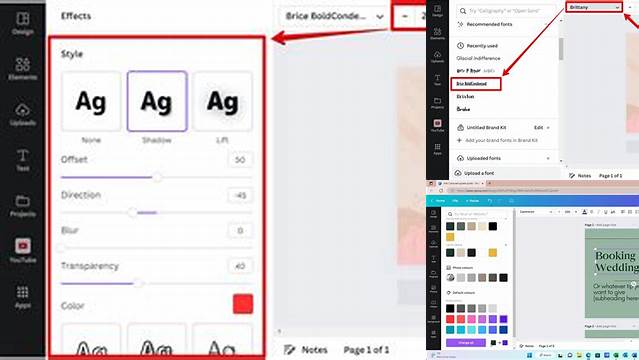
Canva Fonts: Change All Slides Easily
Hey guys! Ever been stuck changing fonts one slide at a time in Canva? It’s a real time-killer, right? Well, I’m here to tell you there’s a much easier way. Let’s dive into how you can change fonts across all your Canva slides in just a few clicks. Trust me, this trick will save you tons of time and effort, making your design process way smoother. So, let’s get started and make your Canva experience a whole lot better!
Understanding Canva's Font System
Before we jump into changing fonts, let's quickly understand how Canva handles fonts. Canva has a massive library of fonts to choose from, ranging from classic serif fonts to modern sans-serif options. Each font has its own unique personality and can significantly impact the overall look and feel of your presentation. Understanding this variety is the first step in making informed decisions about your design.
When you start a new project in Canva, a default font is automatically assigned. This font is used for all text elements unless you manually change it. Knowing this default setting is important because it affects how efficiently you can make changes later on. If you're not happy with the default font, you'll need to know how to change it quickly and consistently across all your slides. That's where the techniques we'll discuss later come in handy. By understanding Canva's font system, you can optimize your workflow and ensure a cohesive design throughout your presentation.
Choosing the right font involves considering several factors. Think about the tone of your presentation: Is it formal or informal? The font should reflect that. Also, consider readability. A fancy, decorative font might look great, but if it's hard to read, it's not a good choice. Always prioritize clarity. Experiment with different font pairings to see what looks best together. Canva allows you to use different fonts for headings and body text, which can create a visually appealing contrast. Just make sure the fonts complement each other and maintain a consistent style throughout your slides. By mastering these basics, you'll be well on your way to creating professional and engaging presentations with Canva.
The Traditional Method: Changing Fonts Manually
Okay, let’s talk about the old-school way: manually changing fonts. This involves going through each slide and changing the font individually. It's definitely doable, but super time-consuming, especially if you have a lot of slides. To do this, you click on a text box, go to the font dropdown menu, and select your new font. Repeat this for every text element on every slide. Sounds tedious, right? It is!
While the manual method gives you complete control over each text element, it's not the most efficient way to work. Imagine you have a presentation with 30 slides and multiple text boxes on each slide. Changing the font manually would take hours! This method is prone to errors because it's easy to miss a text box or accidentally select the wrong font. Plus, it's just plain boring. There are far better ways to manage your fonts in Canva, which we'll get to in a bit.
Despite its drawbacks, the manual method can be useful in certain situations. For example, if you only need to change the font on a few slides or if you want to use different fonts on different slides for emphasis, the manual method might be the best option. However, for large presentations where you want a consistent font throughout, you should definitely explore the more efficient methods that Canva offers. Trust me, your sanity will thank you!
Why You Should Avoid Manual Font Changes
Seriously, avoid changing fonts manually if you can. Not only does it take forever, but it also increases the risk of inconsistencies. You might accidentally use different font sizes or weights, which can make your presentation look unprofessional. Plus, all that repetitive clicking can be a real pain. Let's be real; nobody wants to spend their valuable time doing that.
Manual font changes are a recipe for disaster when it comes to maintaining a consistent design. Even if you're super careful, it's easy to make mistakes. Imagine presenting your slides and realizing that some slides have a slightly different font than others. It's distracting and can undermine your credibility. Consistency is key to a polished presentation, and manual font changes make it much harder to achieve that.
Furthermore, the time you save by using more efficient methods can be used for more important tasks, like refining your content or practicing your delivery. Why waste hours on a tedious task when you can accomplish the same thing in minutes? By avoiding manual font changes, you're not just saving time; you're also improving the overall quality of your presentation and freeing up your energy to focus on what really matters.
The Style Feature: A Quick Solution
Here’s where things get interesting. Canva has a nifty feature called “Styles” that lets you apply font and color combinations to your entire presentation with just one click. This is a game-changer, guys! To use it, go to the "Styles" tab on the left-hand side of your screen. You'll see a variety of pre-designed style combinations. Each style includes a font pairing and a color palette. Simply click on a style to apply it to your entire presentation.
The "Styles" feature is incredibly useful for quickly changing the overall look and feel of your presentation. It's perfect for when you want to experiment with different design options or when you need to make a quick change to match your brand guidelines. However, keep in mind that the "Styles" feature applies both font and color changes. If you only want to change the font, you might need to customize the style further.
One of the best things about the "Styles" feature is that it ensures consistency across all your slides. You don't have to worry about accidentally using different fonts or colors on different slides. This makes your presentation look more professional and polished. Plus, it saves you a ton of time and effort. So, if you're looking for a quick and easy way to change fonts in Canva, the "Styles" feature is definitely worth checking out.
How to Access the Styles Tab in Canva
Finding the “Styles” tab is super easy. Open your Canva project, and look on the left side of your screen. You should see a panel with different options like “Templates,” “Elements,” and “Uploads.” Scroll down until you find “Styles.” If you don’t see it, click on the three dots that say “More” and search for “Styles” in the dropdown menu. Click on it, and the Styles tab will appear.
Once you've located the "Styles" tab, you can start exploring the different style options available. Canva offers a wide variety of pre-designed styles to choose from, ranging from minimalist and modern to bold and colorful. Each style includes a font pairing and a color palette that have been carefully selected to work well together. This makes it easy to find a style that matches your brand or the overall look and feel you're going for.
The "Styles" tab also allows you to create your own custom styles. This is a great option if you have specific brand guidelines that you need to follow or if you want to create a unique look for your presentation. To create a custom style, simply select the fonts and colors you want to use, and then save the style for future use. This will save you time and effort in the long run, as you won't have to manually select the same fonts and colors every time you create a new presentation.
Applying Styles to All Slides
Once you've found the “Styles” tab, applying a style to all your slides is a breeze. Just click on the style you like, and Canva will automatically apply the font and color combination to all the slides in your presentation. If you don’t like how it looks, just click on a different style until you find one that works for you.
It's important to note that applying a style will override any existing font and color settings on your slides. So, if you've already customized the fonts and colors on some of your slides, you'll need to reapply those changes after applying the style. However, this is still much faster than manually changing the fonts on every slide.
If you want to apply a style to only a few slides, you can select those slides before clicking on the style. This is useful if you want to create a visual hierarchy in your presentation or if you want to highlight certain slides. Just remember to hold down the Shift or Ctrl key while clicking on the slides to select multiple slides at once.
Customizing Styles to Fit Your Needs
While the pre-designed styles are great, you might want to tweak them to better fit your brand or personal preferences. No problem! Canva lets you customize styles. After applying a style, you can still change individual fonts and colors. This gives you the best of both worlds: the convenience of applying a style and the flexibility of customizing it.
To customize a style, simply click on the text or element you want to change, and then use the font and color tools in the toolbar to make your adjustments. You can also create your own custom styles from scratch by selecting the fonts and colors you want to use and then saving the style for future use. This is a great option if you have specific brand guidelines that you need to follow.
When customizing styles, it's important to maintain consistency throughout your presentation. Use the same fonts and colors on all your slides, and avoid using too many different styles. This will help create a polished and professional look. It's also a good idea to create a style guide for your brand or personal use. This will help you stay consistent and make it easier to create visually appealing presentations in the future.
Using Brand Kits for Consistent Branding
If you have a Canva Pro account, you can create a Brand Kit. This is a collection of your brand’s logos, colors, and fonts. Using a Brand Kit ensures that all your designs are consistent with your brand. To set up a Brand Kit, go to the “Brand Kit” section in your Canva account settings and upload your logos, select your brand colors, and choose your brand fonts.
Having a Brand Kit is incredibly useful for maintaining a consistent brand identity across all your designs. It saves you time and effort by making it easy to access your brand assets whenever you need them. Plus, it helps ensure that your designs always look professional and on-brand.
When choosing fonts for your Brand Kit, it's important to select fonts that are both visually appealing and easy to read. Consider the overall tone of your brand and choose fonts that reflect that. You should also choose fonts that are available in a variety of weights and styles, so you have plenty of options to work with. Once you've set up your Brand Kit, you can easily apply your brand fonts to all your slides in Canva with just a few clicks.
Setting Default Fonts for New Projects
Want to take it a step further? You can set default fonts for all your new Canva projects. This means that every time you start a new design, your chosen fonts will already be selected. This is a huge time-saver if you always use the same fonts. To do this, go to your Canva account settings and look for the “Brand” or “Defaults” section. There, you can specify your default fonts for headings and body text.
Setting default fonts is a great way to streamline your design process and ensure consistency across all your projects. It's especially useful if you work on a lot of different projects or if you collaborate with other designers. By setting default fonts, you can make sure that everyone is using the same fonts, which helps maintain a cohesive brand identity.
When choosing default fonts, it's important to select fonts that are versatile and easy to read. Consider the types of projects you typically work on and choose fonts that are appropriate for those projects. You should also choose fonts that are available in a variety of weights and styles, so you have plenty of options to work with. Once you've set your default fonts, you can start creating new designs with confidence, knowing that your chosen fonts will always be there.
Using the "Change All" Feature (If Available)
Canva sometimes offers a “Change All” feature when you select a new font. If you see this option, it’s your best friend! It automatically changes the font across all instances of that particular text style in your presentation. Keep an eye out for this feature, as it can save you a lot of time.
The "Change All" feature is a game-changer when it comes to making global font changes in Canva. It's especially useful if you've used the same font for headings or body text throughout your presentation. Instead of manually changing each instance of the font, you can simply select the "Change All" option and Canva will automatically update all the text elements that use that font.
If you don't see the "Change All" feature, don't worry. There are still plenty of other ways to quickly change fonts in Canva, as we've discussed in this article. However, if you do see the "Change All" feature, be sure to take advantage of it. It's one of the fastest and easiest ways to make global font changes in Canva.
Keyboard Shortcuts for Font Changes
Become a Canva power user by learning keyboard shortcuts! While there aren’t specific shortcuts for changing fonts directly, you can use shortcuts for selecting text (Ctrl+A or Cmd+A) and then quickly access the font dropdown menu. This can speed up the manual font change process if you need to make small adjustments.
Keyboard shortcuts are a great way to improve your efficiency and speed up your workflow in Canva. While there may not be specific shortcuts for changing fonts, there are plenty of other shortcuts that can help you work faster. For example, you can use the Ctrl+C (or Cmd+C) shortcut to copy text and the Ctrl+V (or Cmd+V) shortcut to paste text. You can also use the Ctrl+B (or Cmd+B) shortcut to bold text and the Ctrl+I (or Cmd+I) shortcut to italicize text.
Learning these and other keyboard shortcuts can save you a lot of time and effort in the long run. So, take some time to familiarize yourself with the keyboard shortcuts in Canva and start using them in your daily workflow. You'll be amazed at how much faster and more efficient you can become.
Font Pairing Tips for Canva Designs
Choosing the right font pairings can make or break your design. A good rule of thumb is to pair a serif font (like Times New Roman or Georgia) with a sans-serif font (like Arial or Helvetica). Use the serif font for headings and the sans-serif font for body text, or vice versa. This creates a visual contrast that’s pleasing to the eye.
Font pairing is an art, but it doesn't have to be intimidating. There are plenty of resources available online that can help you learn more about font pairing and find fonts that work well together. You can also experiment with different font pairings in Canva to see what looks best for your specific project.
When choosing fonts, it's important to consider the overall tone of your design. Are you going for a formal and professional look, or a more casual and playful look? The fonts you choose should reflect that. You should also consider the readability of the fonts. Choose fonts that are easy to read, especially for body text. A fancy or decorative font might look great for a heading, but it might not be the best choice for body text.
Using Canva's Font Filters Effectively
Canva has font filters that can help you narrow down your font choices. You can filter fonts by style (serif, sans-serif, handwritten, etc.) and by language. Use these filters to quickly find the perfect font for your project. For example, if you’re looking for a modern font, filter by “sans-serif” to see all the sans-serif options available.
Using Canva's font filters effectively can save you a lot of time and effort when searching for the perfect font. Instead of scrolling through hundreds of fonts, you can quickly narrow down your choices by using the filters. This is especially useful if you have a specific style in mind or if you need to find a font that supports a particular language.
In addition to filtering by style and language, you can also filter by popularity and date added. This can help you discover new and trending fonts that you might not have seen before. So, take some time to explore Canva's font filters and see how they can help you find the perfect font for your next project.
Sometimes, fonts might not display correctly in Canva. This could be due to a number of reasons, such as a font not being fully loaded or a browser issue. If you encounter font issues, try refreshing the page or clearing your browser cache. If that doesn’t work, try using a different browser or contacting Canva support.
Troubleshooting font issues can be frustrating, but it's important to remember that there are solutions available. If you're experiencing font problems in Canva, the first thing you should do is try refreshing the page. This often resolves minor issues and can get the fonts displaying correctly.
If refreshing the page doesn't work, try clearing your browser cache. This can help remove any corrupted files that might be causing the font issues. If you're still having problems, try using a different browser. Sometimes, certain browsers might not be fully compatible with Canva's font system. If none of these solutions work, contact Canva support. They can help you troubleshoot the issue and find a solution.
Creating Templates with Pre-Set Fonts
If you frequently create similar types of presentations, consider creating templates with pre-set fonts. This way, you don’t have to worry about changing fonts every time you start a new project. Simply open the template, add your content, and you’re good to go!
Creating templates with pre-set fonts is a great way to save time and effort in the long run. It's especially useful if you work on a lot of similar projects or if you want to ensure consistency across all your designs. By creating templates, you can streamline your workflow and make it easier to create professional-looking presentations.
When creating templates, it's important to choose fonts that are versatile and easy to read. Consider the types of projects you typically work on and choose fonts that are appropriate for those projects. You should also choose fonts that are available in a variety of weights and styles, so you have plenty of options to work with. Once you've created your templates, you can start using them for all your future projects.
Collaborating with Others: Font Considerations
When collaborating with others on Canva, make sure everyone is using the same fonts. This avoids any font discrepancies when sharing and editing the design. Communicate clearly about which fonts to use and consider using a Brand Kit to ensure everyone is on the same page.
Collaboration is key to successful teamwork, and when it comes to design, it's important to ensure that everyone is on the same page. Font consistency is a crucial aspect of maintaining a cohesive design, so it's important to communicate clearly about which fonts to use. Using a Brand Kit is a great way to ensure that everyone is using the same fonts and colors.
Before starting a collaborative project, take some time to discuss the overall design goals and preferences. This will help everyone understand the vision for the project and make it easier to make consistent design decisions. You should also establish a clear process for reviewing and approving changes to the design. This will help avoid any misunderstandings or disagreements about font choices.
Exporting Your Canva Design with the Correct Fonts
Before exporting your Canva design, double-check that all the fonts are displaying correctly. Sometimes, fonts can change during the export process, especially if you’re using custom fonts. To avoid this, try exporting your design as a PDF and embedding the fonts. This ensures that the fonts will display correctly on any device.
Exporting your Canva design with the correct fonts is crucial for ensuring that your design looks its best. Font discrepancies can be frustrating and can undermine the overall quality of your design. To avoid font issues during the export process, it's important to take a few precautions.
First, double-check that all the fonts are displaying correctly in Canva before exporting. If you notice any font problems, try refreshing the page or clearing your browser cache. If that doesn't work, try using a different browser or contacting Canva support. Second, try exporting your design as a PDF and embedding the fonts. This ensures that the fonts will display correctly on any device. Finally, always preview your exported design to make sure that the fonts are displaying as expected.
Mobile Font Editing Tips in Canva
Using Canva on your phone or tablet? No problem! The process for changing fonts is similar to the desktop version. Tap on the text box, then tap on the font dropdown menu. Select your new font, and it will be applied to the text. The mobile app also supports the “Styles” feature, so you can quickly change fonts across all your slides.
Canva's mobile app is a great way to create and edit designs on the go. Whether you're commuting to work or waiting in line, you can easily make changes to your designs from your phone or tablet. The mobile app offers many of the same features as the desktop version, including the ability to change fonts.
To change fonts in the mobile app, simply tap on the text box you want to edit, then tap on the font dropdown menu. This will display a list of available fonts. Select the font you want to use, and it will be applied to the text. The mobile app also supports the "Styles" feature, so you can quickly change fonts across all your slides with just a few taps.
Font Licensing and Usage Rights in Canva
Be mindful of font licensing and usage rights when using fonts in Canva. Most fonts in Canva are free to use for personal and commercial purposes, but some fonts may have restrictions. Always check the font license before using a font in your design to make sure you’re complying with the terms of use.
Font licensing and usage rights are important considerations when using fonts in Canva. While most fonts in Canva are free to use, some fonts may have restrictions on how they can be used. It's important to check the font license before using a font in your design to make sure you're complying with the terms of use.
If you're unsure about the licensing terms for a particular font, you can contact Canva support for clarification. They can help you understand the font license and ensure that you're using the font in accordance with the terms of use. By being mindful of font licensing and usage rights, you can avoid any legal issues and ensure that you're using fonts responsibly.
Exploring Free Font Resources Outside Canva
While Canva has a great selection of fonts, you can also explore free font resources outside of Canva. Websites like Google Fonts and Font Squirrel offer a wide variety of free fonts that you can download and use in your Canva designs. Just make sure to check the font license before using any external fonts.
Exploring free font resources outside of Canva can open up a world of creative possibilities. There are countless websites that offer free fonts, each with its own unique style and personality. However, it's important to exercise caution when downloading fonts from external sources.
Always check the font license before using any external fonts. Some fonts may be free for personal use only, while others may be free for commercial use. Make sure you understand the font license and comply with the terms of use. You should also download fonts from reputable websites to avoid downloading malware or viruses. By being careful and responsible, you can safely explore free font resources and find the perfect font for your next Canva design.
The Psychology of Fonts: Choosing the Right Font for Your Message
Did you know that fonts can evoke different emotions and associations? The psychology of fonts is a fascinating field that explores how fonts affect our perception of a message. For example, a serif font might convey a sense of tradition and authority, while a sans-serif font might convey a sense of modernity and simplicity. Consider the message you’re trying to convey and choose fonts that align with that message.
The psychology of fonts is a fascinating field that explores how fonts can influence our perception of a message. Different fonts can evoke different emotions and associations, so it's important to choose fonts that align with the message you're trying to convey.
For example, a serif font like Times New Roman might convey a sense of tradition and authority, while a sans-serif font like Arial might convey a sense of modernity and simplicity. A handwritten font might convey a sense of warmth and informality, while a script font might convey a sense of elegance and sophistication. By understanding the psychology of fonts, you can choose fonts that effectively communicate your message and resonate with your audience.
Advanced Text Effects with Different Fonts
Experiment with advanced text effects like shadows, outlines, and gradients to make your fonts stand out. Canva offers a variety of text effects that you can use to enhance your designs. Try using different fonts in combination with these effects to create unique and eye-catching visuals.
Advanced text effects can add a touch of flair and personality to your designs. Canva offers a variety of text effects, such as shadows, outlines, gradients, and glow effects, that you can use to enhance your designs. These effects can help make your fonts stand out and create a more visually appealing design.
When using text effects, it's important to use them sparingly and in a way that complements the overall design. Avoid using too many effects or using effects that are too distracting. The goal is to enhance the text, not to overwhelm it. Experiment with different text effects and fonts to find combinations that work well together and create unique and eye-catching visuals.
Animation Font Style
Font animation has become increasingly popular in modern web design, as it adds a dynamic and engaging element to text. There are several ways to animate fonts, ranging from simple fade-in effects to complex kinetic typography.
For simple animations, you can use CSS transitions and transforms to create effects such as scaling, rotating, or sliding text into view. For more complex animations, JavaScript libraries like GSAP (GreenSock Animation Platform) can be used to control every aspect of the animation with precision.
When using animated fonts, it's essential to consider performance. Complex animations can be resource-intensive, so it's important to optimize them for smooth playback on different devices. Using hardware acceleration, minimizing the number of animated elements, and caching assets can help improve performance.
Gradient Font style
Gradient fonts add a visually appealing effect to text by blending multiple colors seamlessly. This technique can be used to create a sense of depth, highlight specific words, or simply add a touch of creativity to your designs. Implementing gradient fonts can be done through various methods, including CSS and image-based approaches.
CSS gradients provide a flexible and efficient way to apply gradients to fonts. By using the linear-gradient() or radial-gradient() functions, you can define the color stops and direction of the gradient. This method is supported by most modern browsers and allows for dynamic changes through CSS animations and transitions.
Image-based gradient fonts involve creating an image with the desired gradient and using it as a mask or background for the text. This approach offers more control over the gradient's appearance but can be less flexible than CSS gradients. It's important to optimize the image to ensure it loads quickly and doesn't affect the page's performance.
3D Font Style
3D fonts add depth and realism to text, making it stand out in designs. This effect can be achieved through various techniques, including CSS, SVG, and specialized 3D modeling software.
CSS can be used to create simple 3D effects by applying multiple text shadows with slight offsets. This technique simulates depth and can be enhanced with animations and transitions. However, CSS-based 3D fonts are limited in complexity and realism.
SVG (Scalable Vector Graphics) allows for more advanced 3D effects by defining shapes and applying transformations. SVG-based 3D fonts can be animated and interacted with, providing a dynamic user experience. However, creating and optimizing SVG 3D fonts requires expertise in vector graphics.
Vintage Font Style
Vintage fonts evoke a sense of nostalgia and timelessness, making them ideal for designs that aim to capture a historical or retro feel. These fonts often feature serifs, ornate details, and unique character shapes that distinguish them from modern typefaces.
When choosing vintage fonts, it's important to consider the specific era or style you want to evoke. Art Deco fonts, for example, feature geometric shapes and bold lines, while Victorian fonts are characterized by intricate details and elegant curves. Researching different vintage styles can help you find the perfect font for your project.
Pairing vintage fonts with appropriate color palettes and design elements can enhance the overall effect. Muted colors, aged textures, and vintage illustrations can complement the font and create a cohesive design. However, it's important to use vintage fonts sparingly to avoid overwhelming the design and maintaining readability.
Handwritten Font Style
Handwritten fonts add a personal and informal touch to designs, making them ideal for projects that aim to create a sense of warmth and authenticity. These fonts mimic the look of handwriting, featuring unique character shapes, varying stroke widths, and natural imperfections.
There are several types of handwritten fonts, ranging from casual scripts to elegant calligraphy. Each type conveys a different tone and is suitable for different design contexts. Casual scripts are ideal for friendly and approachable designs, while elegant calligraphy fonts are suitable for formal and sophisticated projects.
When using handwritten fonts, it's important to consider readability. Some handwritten fonts can be difficult to read, especially in large blocks of text. Using handwritten fonts for headings and short phrases can help maintain readability while adding a personal touch. Additionally, pairing handwritten fonts with simple, clean fonts can improve overall legibility.
Pixel Font Style
Pixel fonts, also known as bitmap fonts, are designed to be displayed at small sizes with individual pixels clearly visible. These fonts are commonly used in retro games, embedded systems, and low-resolution displays where clarity and legibility are crucial.
Creating pixel fonts requires careful attention to detail, as each character is designed pixel by pixel. Tools like FontForge and Bitmap Font Generator can be used to create and customize pixel fonts. It's important to ensure that the font is legible at its intended size and that all characters are consistent in style.
When using pixel fonts, it's important to disable anti-aliasing, which can blur the font and reduce its clarity. Additionally, using integer scaling can help maintain the font's sharpness on higher-resolution displays. Pixel fonts can be combined with modern design elements to create a unique retro-modern aesthetic.
Monospace Font Style
Monospace fonts are characterized by having each character occupy the same horizontal space. This uniformity makes them ideal for coding, displaying tabular data, and creating a clean, technical aesthetic.
There are several types of monospace fonts, ranging from classic typewriter fonts to modern sans-serif designs. Each type conveys a different tone and is suitable for different design contexts. Classic typewriter fonts evoke a sense of history and technology, while modern sans-serif monospace fonts are clean and functional.
When using monospace fonts, it's important to consider readability and legibility. Some monospace fonts can be difficult to read in large blocks of text, especially if the characters are too narrow or the spacing is too tight. Using monospace fonts for code snippets, data tables, and short labels can help maintain readability while adding a technical touch.
Variable Font Style
Variable fonts are a modern font technology that allows for a single font file to contain multiple variations of a typeface. This flexibility enables designers to adjust various aspects of the font, such as weight, width, and slant, without needing to load multiple font files.
Variable fonts offer several benefits, including reduced file sizes, improved performance, and greater design flexibility. By using a single font file, variable fonts can reduce the number of HTTP requests and improve page load times. Additionally, variable fonts allow designers to fine-tune the font's appearance to perfectly match their design needs.
When using variable fonts, it's important to consider browser compatibility and performance. While variable fonts are supported by most modern browsers, older browsers may not support them. Additionally, using too many variations of a variable font can impact performance. Testing the font on different devices and browsers can help ensure a smooth user experience.
Alright, folks! That’s how you can change fonts across all slides in Canva like a pro. No more manual labor! Use these tips to save time and make your presentations look fantastic. Happy designing!